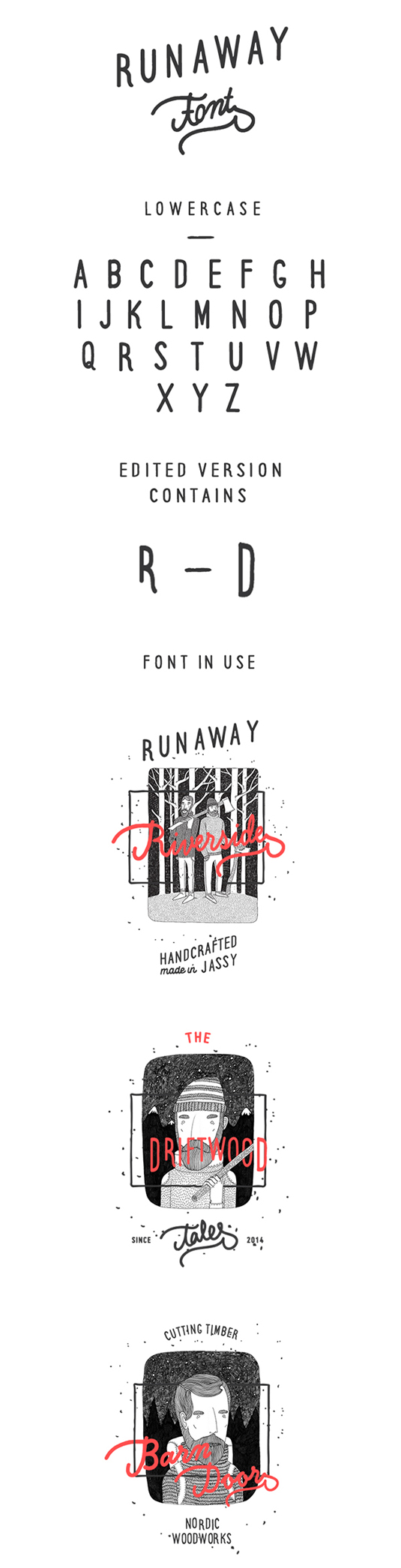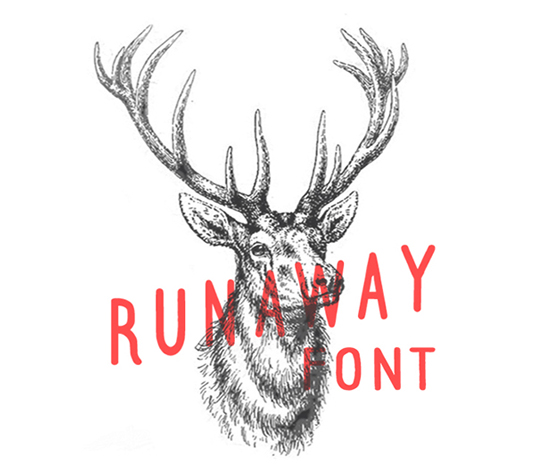
Font of the day: Runaway
Runaway by Iulian Maftei
Today's typeface of choice is Runaway, a handmade font by advertising student Lulian Maftei. A bold, clean design, Runaway is great for creating stand out logos, stationery and more.